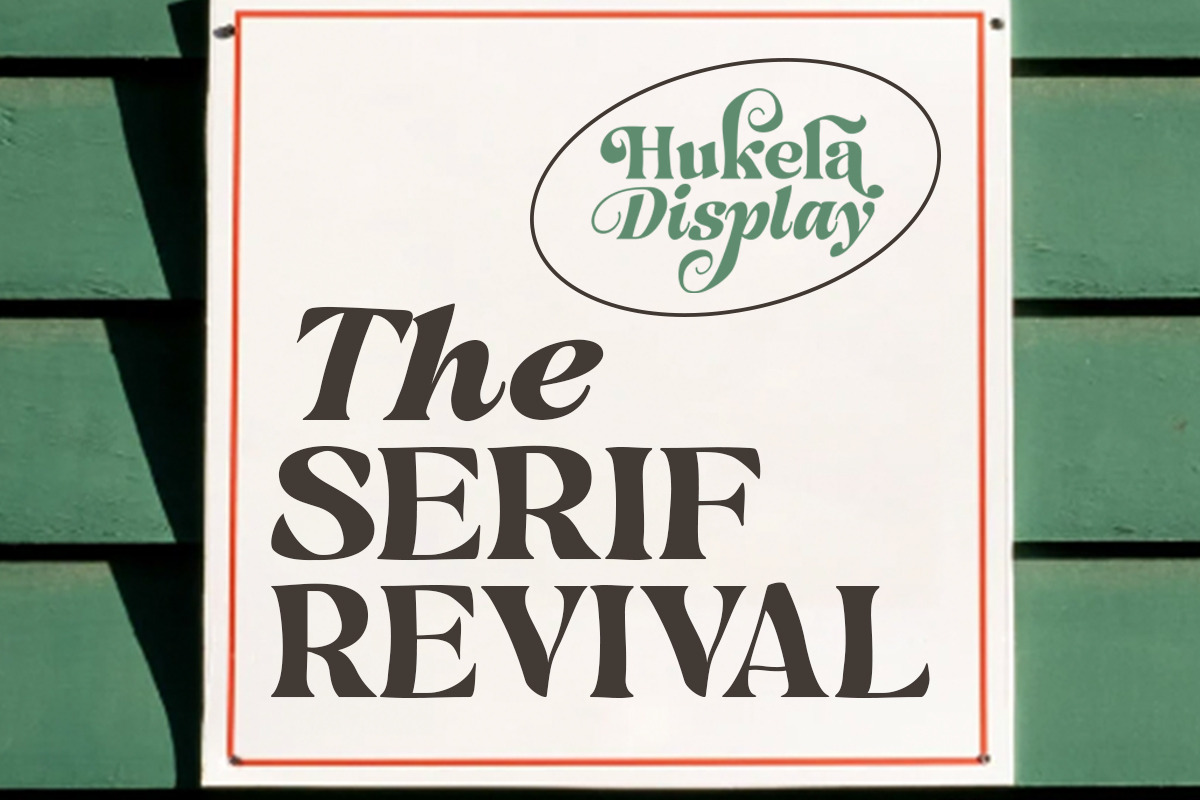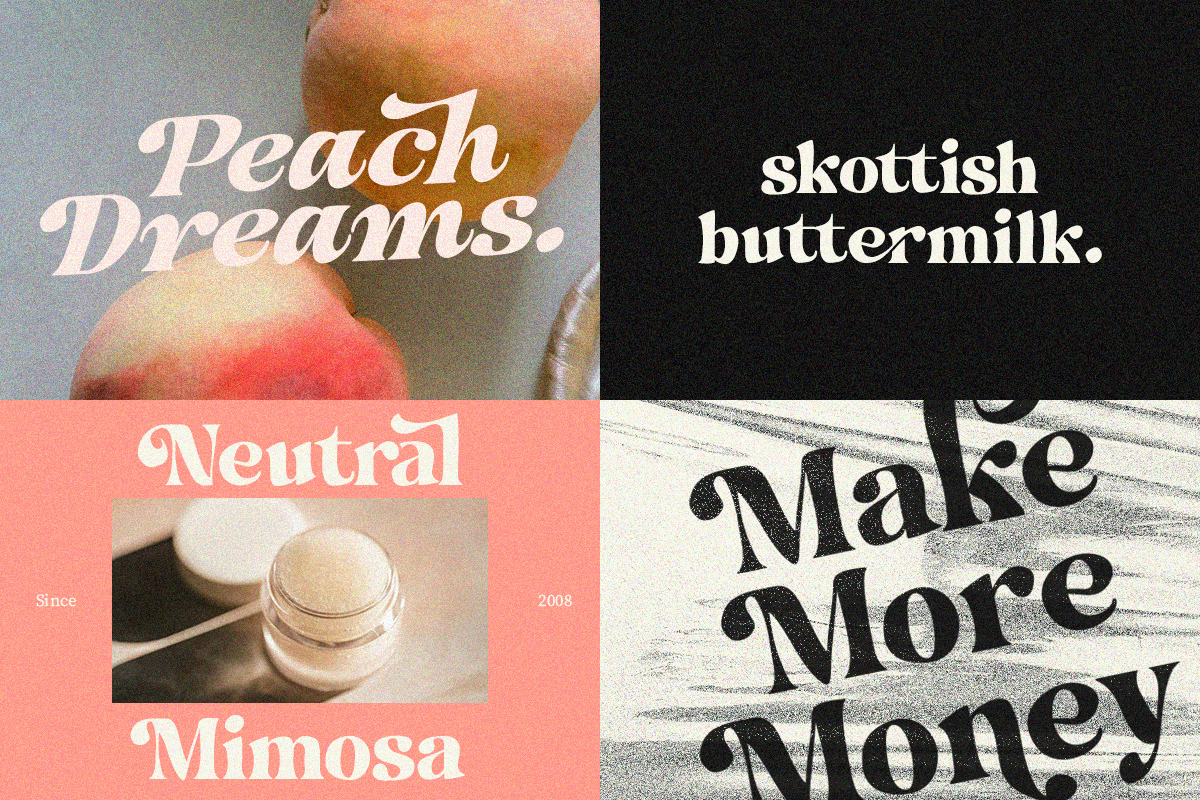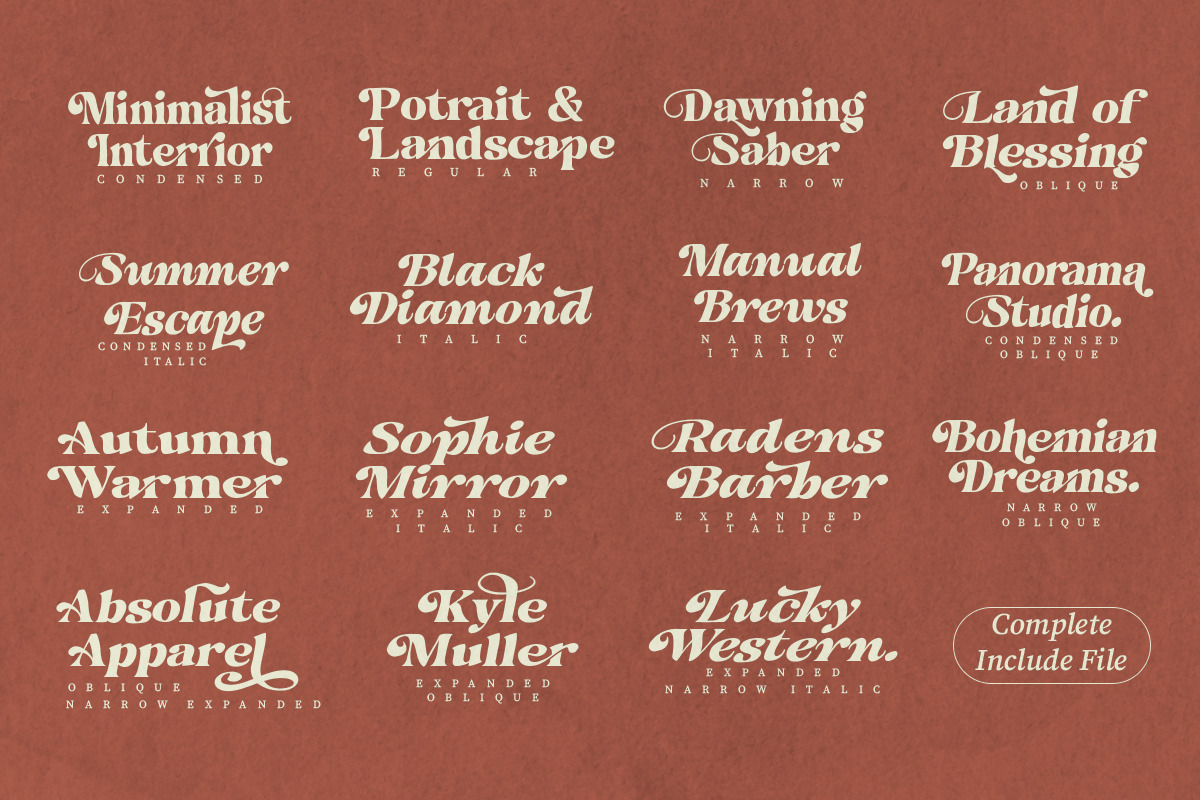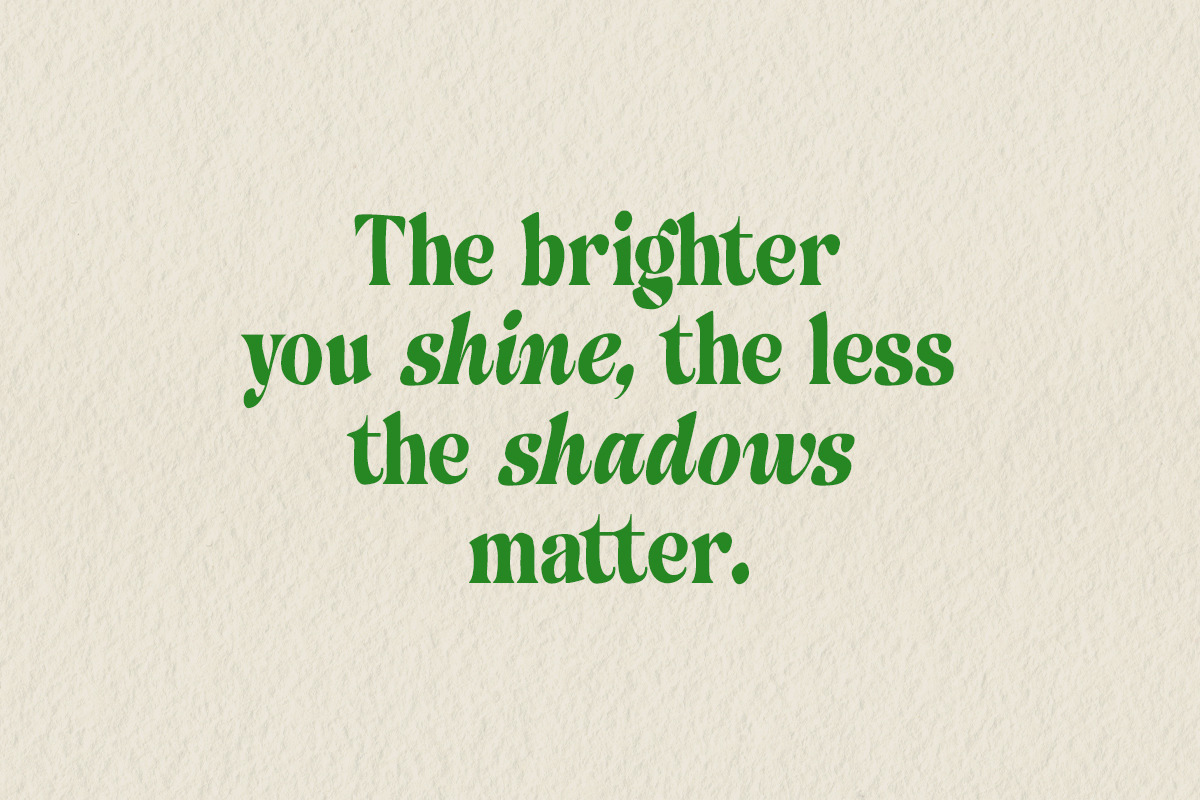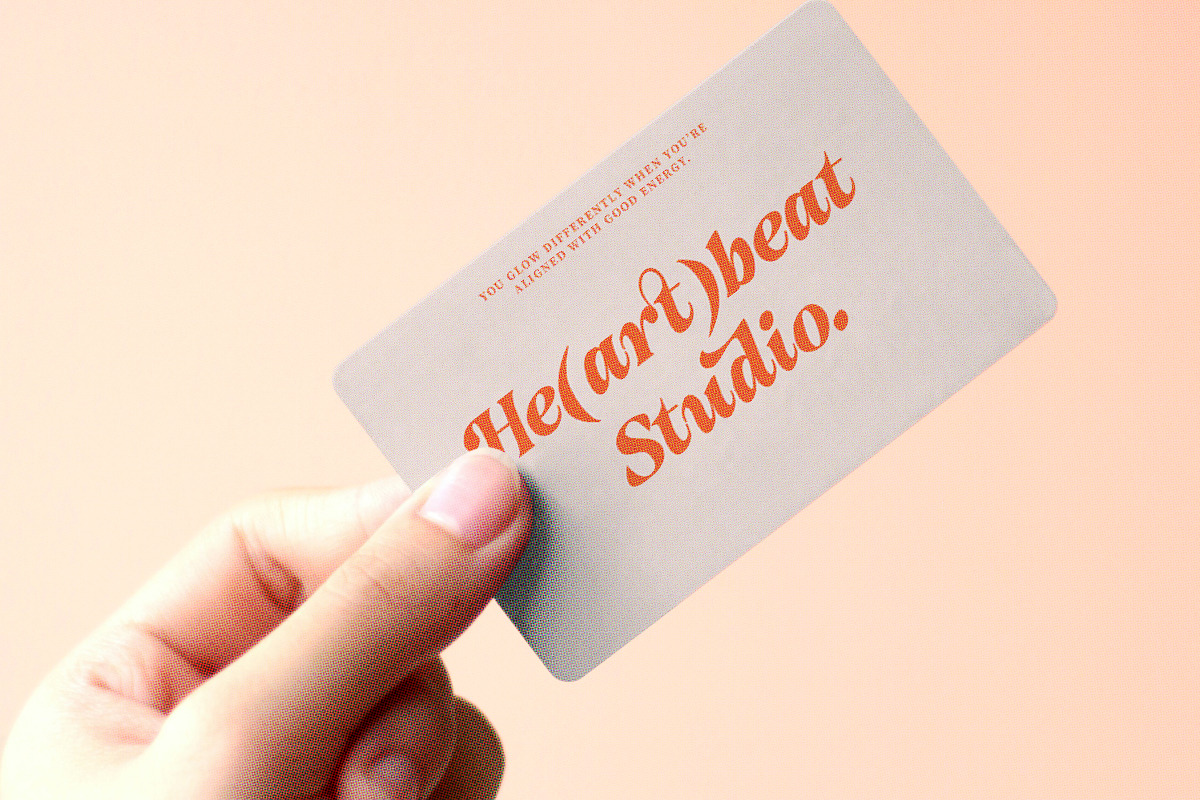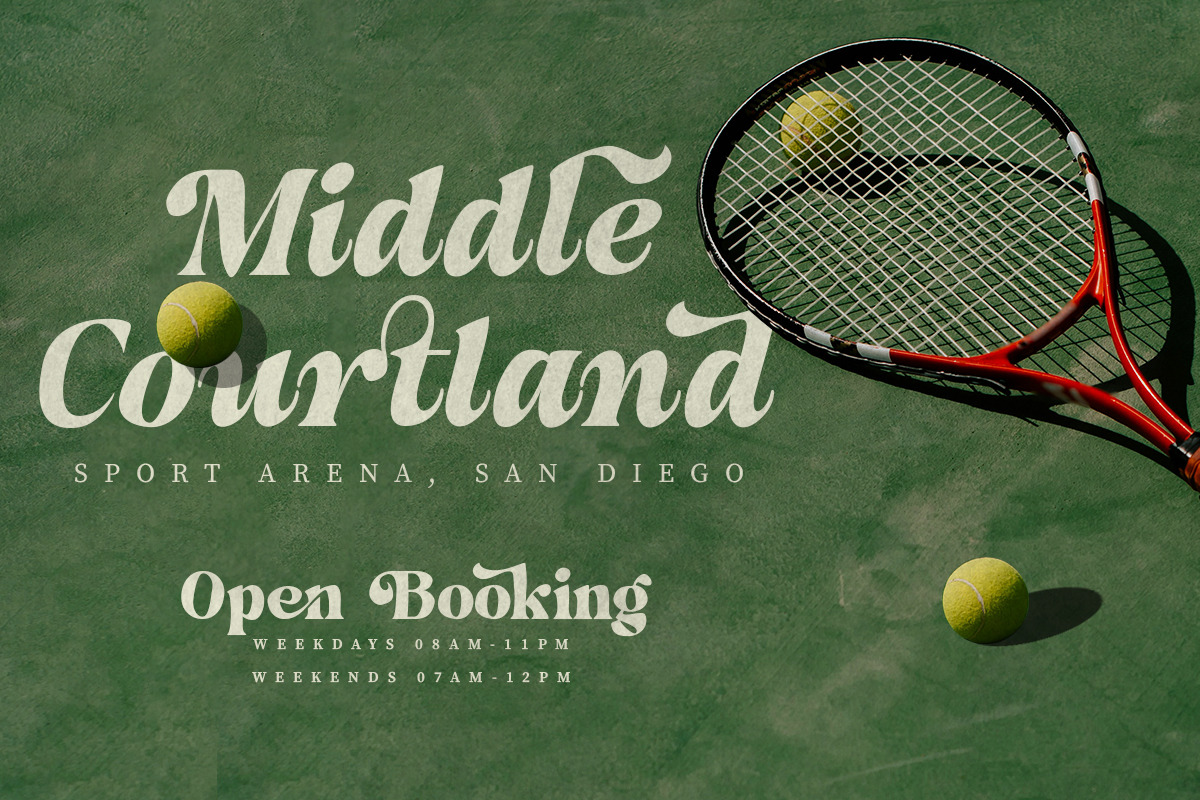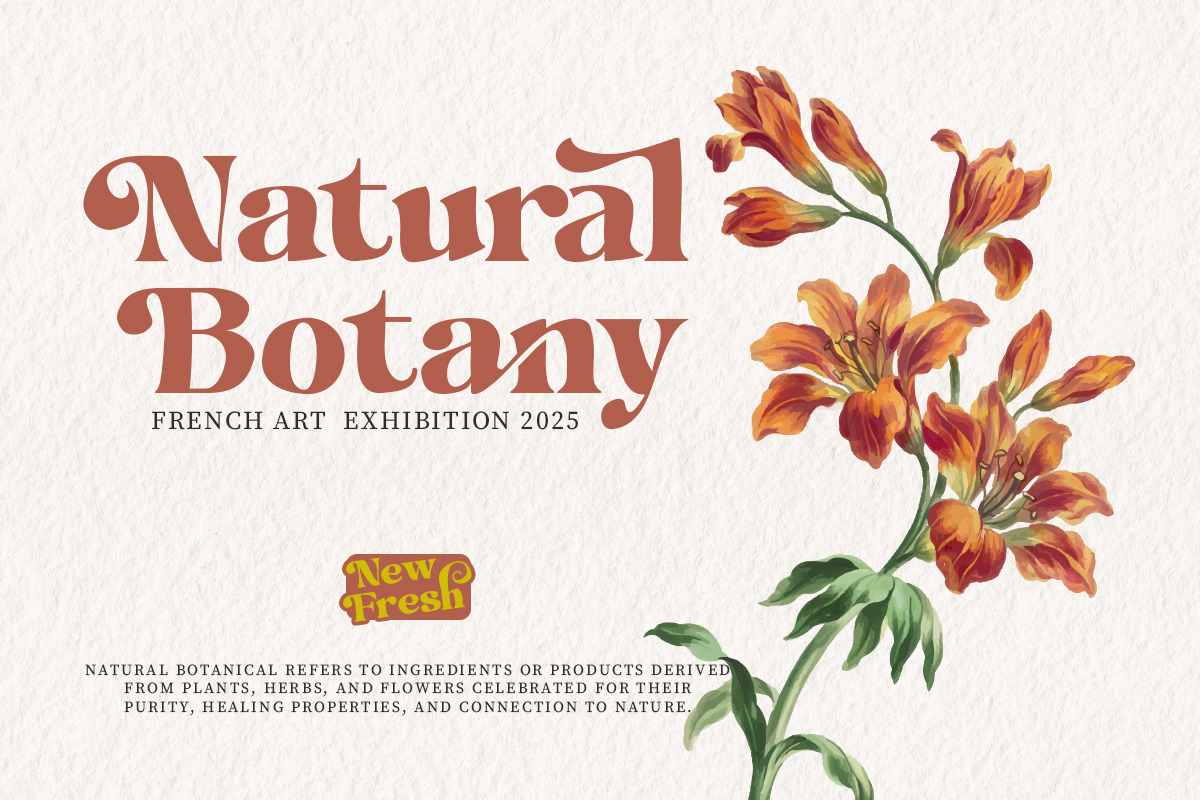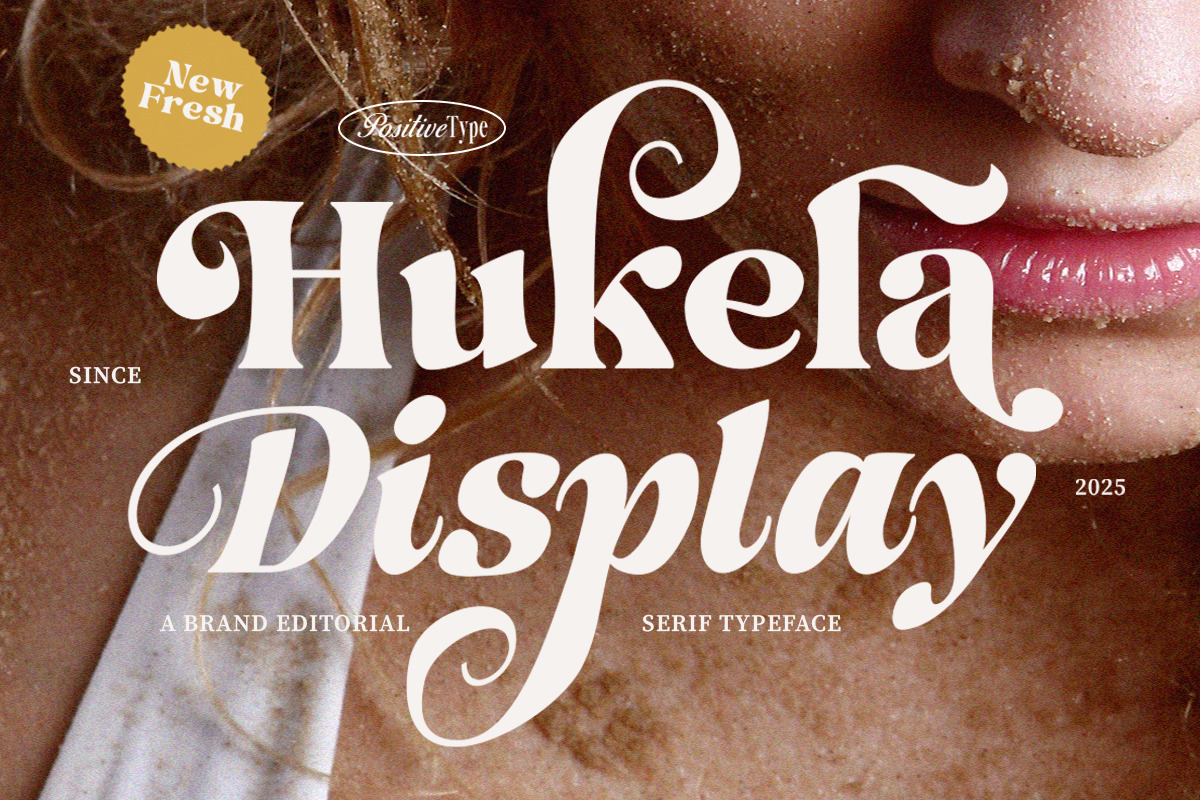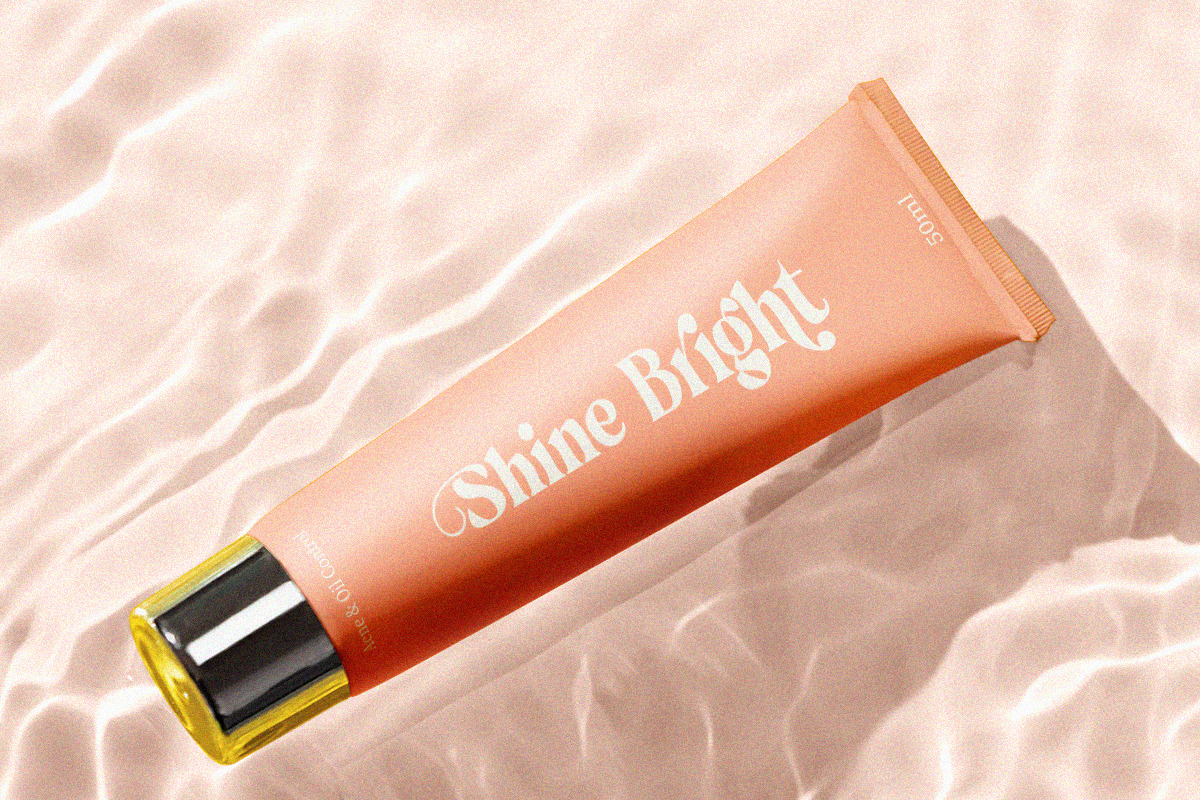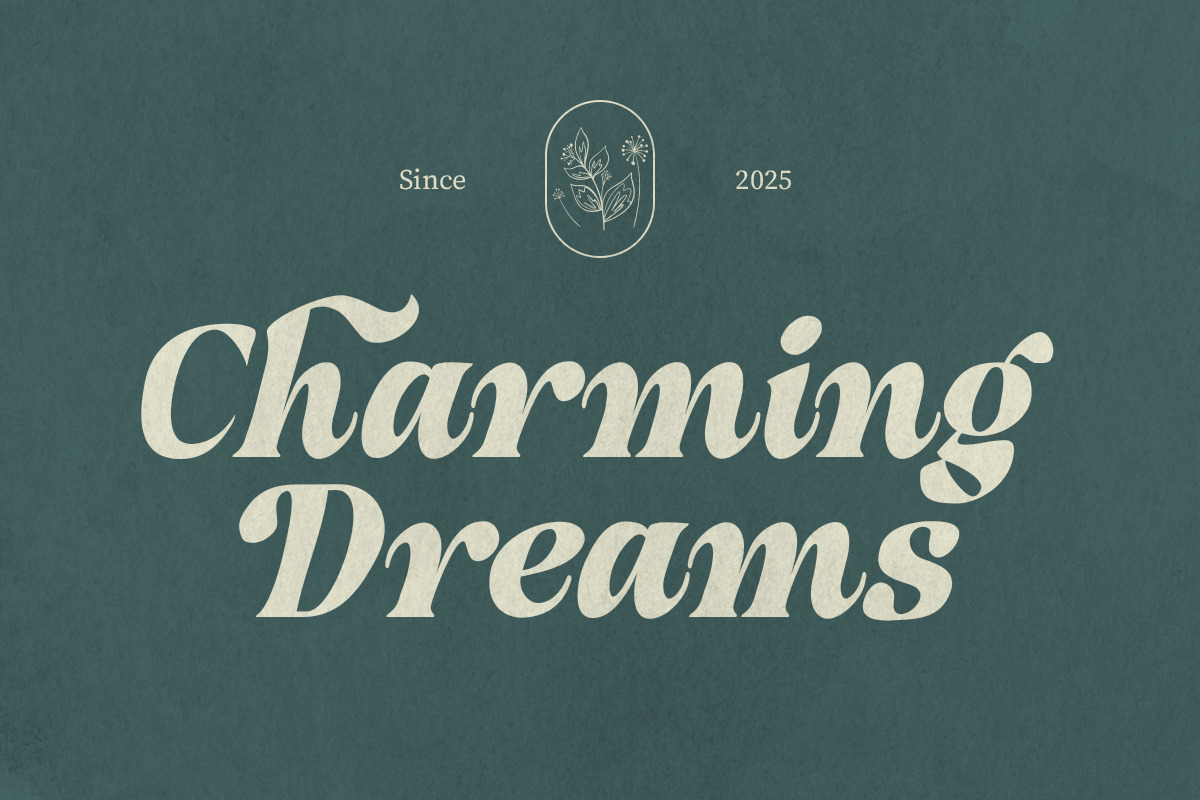
Hukela Display Serif (15 Font)
Hukela Display — A Fresh Editorial Serif Typeface
Hukela Display is a bold and expressive serif typeface designed for brands that dare to stand out. With its elegant curves, refined contrast, and striking editorial flair, Hukela brings a sense of sophistication and artistic character to any project. Perfect for magazines, branding, packaging, fashion editorials, and headlines that demand attention.
Each letter of Hukela Display carries a crafted charm — combining classical serif elegance with modern sensibility. Its high contrast strokes and unique terminal shapes give it a distinctive voice that feels both timeless and contemporary.
15 font styles: Condensed, Condensed Italic, Condensed Oblique, Narrow, Regular, Italic, Italic Narrow, Oblique, Oblique Narrow, Expanded, Expanded Narrow, Expanded Italic, Expanded Italic Narrow, Expanded Oblique, Expanded Oblique Narrow
Uppercase & lowercase letters
Punctuation & symbols
Perfect for branding, headlines, logos, posters, packaging, and editorial design
High-impact display style with refined details
Elegant swashes and curves ideal for fashion or lifestyle branding
Versatile width and style options for flexible visual storytelling